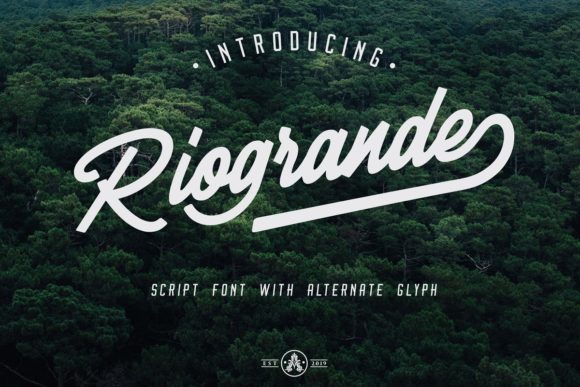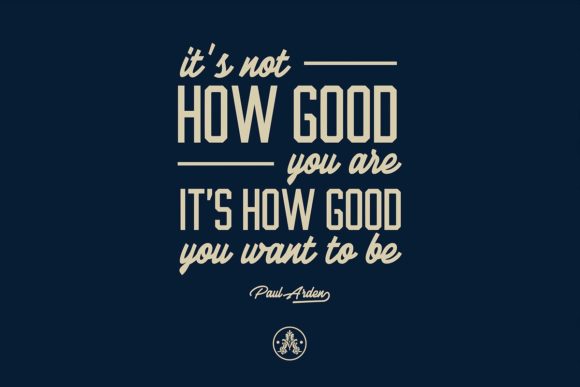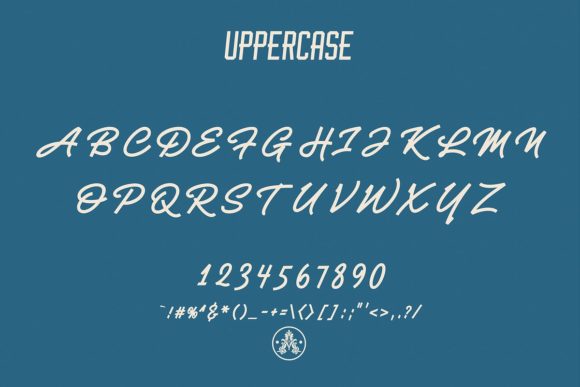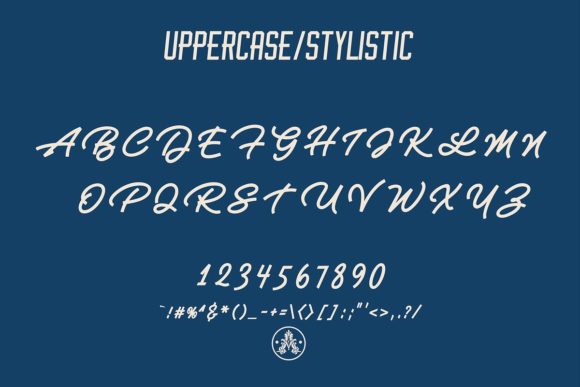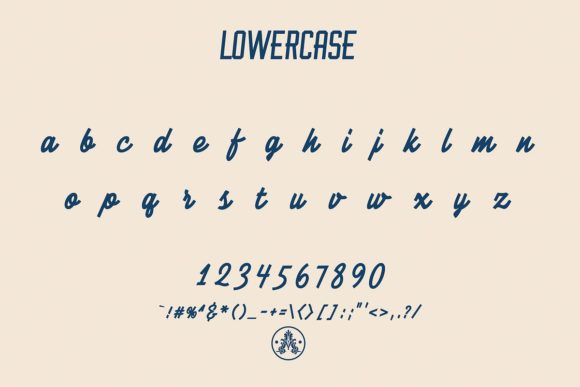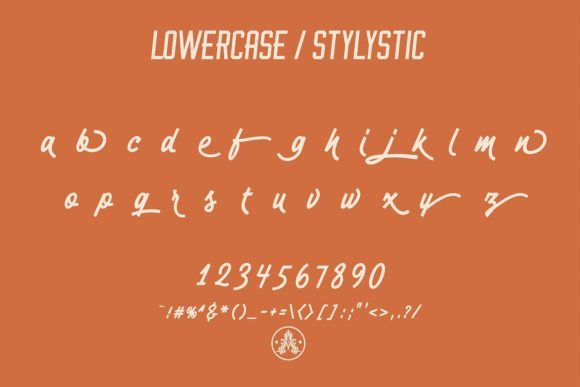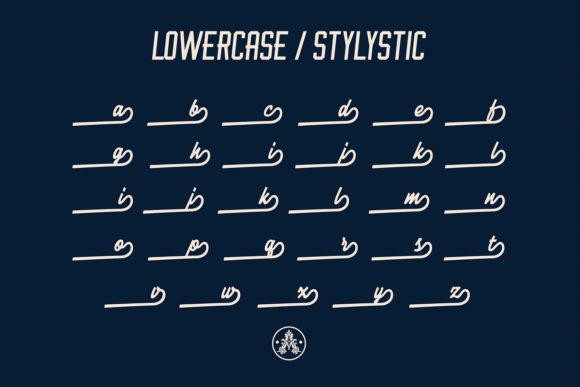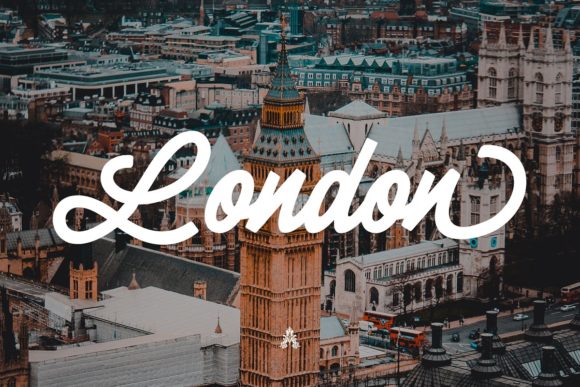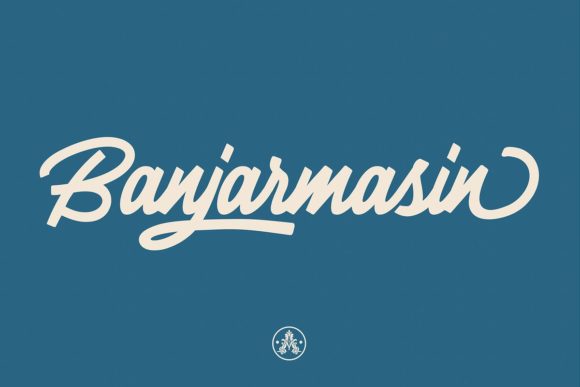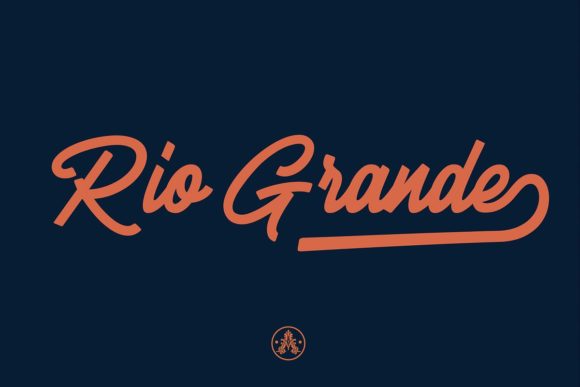
HomeScript FontsRiogrande Font Script Fonts Riogrande Font FacebookXPinterestWhatsApp Riogrande Font Poster 2 Riogrande Font Poster 3 Riogrande Font Poster 4 Riogrande Font Poster 5 Riogrande Font Poster 6 Riogrande Font Poster 7 Riogrande Font Poster 8 Riogrande Font Poster 9 Riogrande Font Poster 10 About Riogrande Font Riogrande is a beautiful and strong handwritten font with a lovely feel. Get inspired by its romantic energy. DOWNLOAD ON CREATIVE FABRICAThis font is sold and delivered by Creative Fabrica. Font Canyon may earn a commission if you buy through this link. People also explored Bestfriend Font Dreamy Delight Font Beanboos and Ooze Font Emilyo Font Pictagram Font Good Job Sticker Pack Font Eleven Fit Font Meiranthy Font Stay Please Font 309 0 TagsRiogrande Font Previous articleBlassville FontNext articleSarmytos Font LEAVE A REPLY Cancel reply Comment: Please enter your comment! Name:* Please enter your name here Email:* You have entered an incorrect email address! Please enter your email address here Website: Save my name, email, and website in this browser for the next time I comment. Personal Use Free Klotee Personal Use Free Read more about this font Harmony Personal Use Free Read more about this font Color Personal Use Free Read more about this font The Fourth Avenue Personal Use Free Read more about this font BLOG How to Cut Any Font on Cricut: Convert a Font to SVG (Free) Turn any font into a clean SVG so it cuts crisp on Cricut - a quick 3-step workflow using a free font-to-SVG tool. Top 10 Handwritten Fonts That Elevate Your Designs Using Fonts in Digital Marketing: Tips to Strengthen Your Brand Identity Fonts That Capture the Spirit of New York City